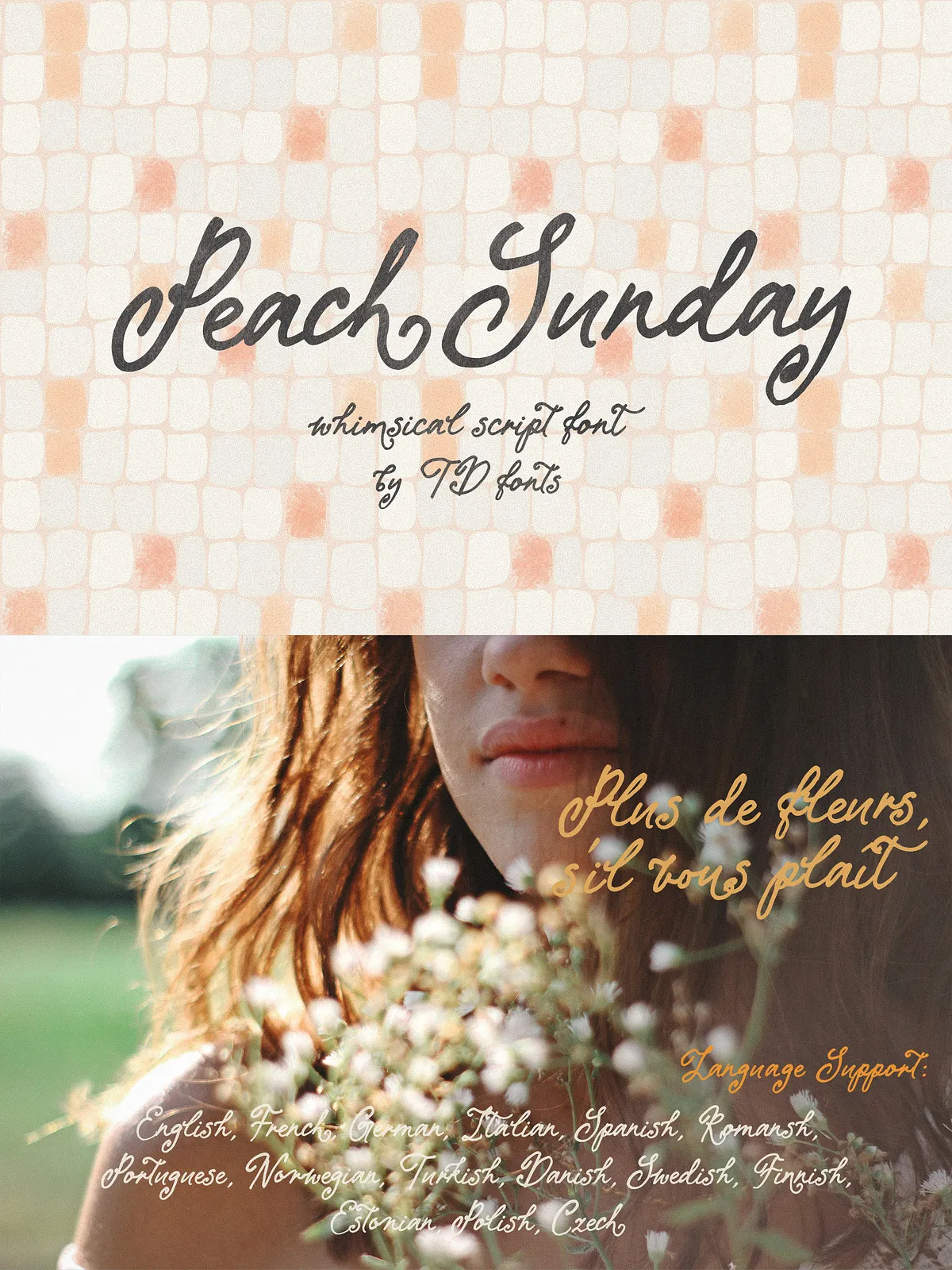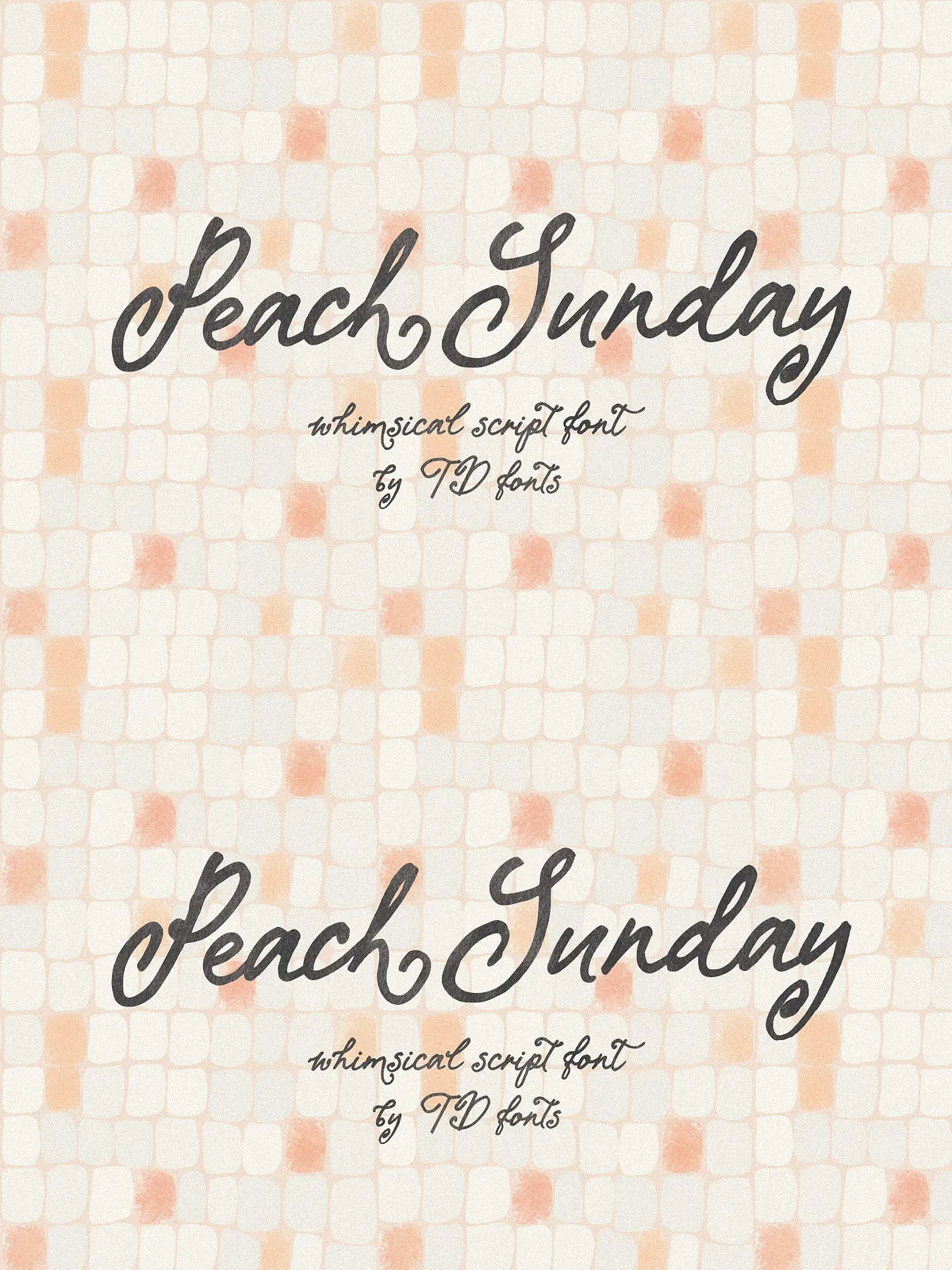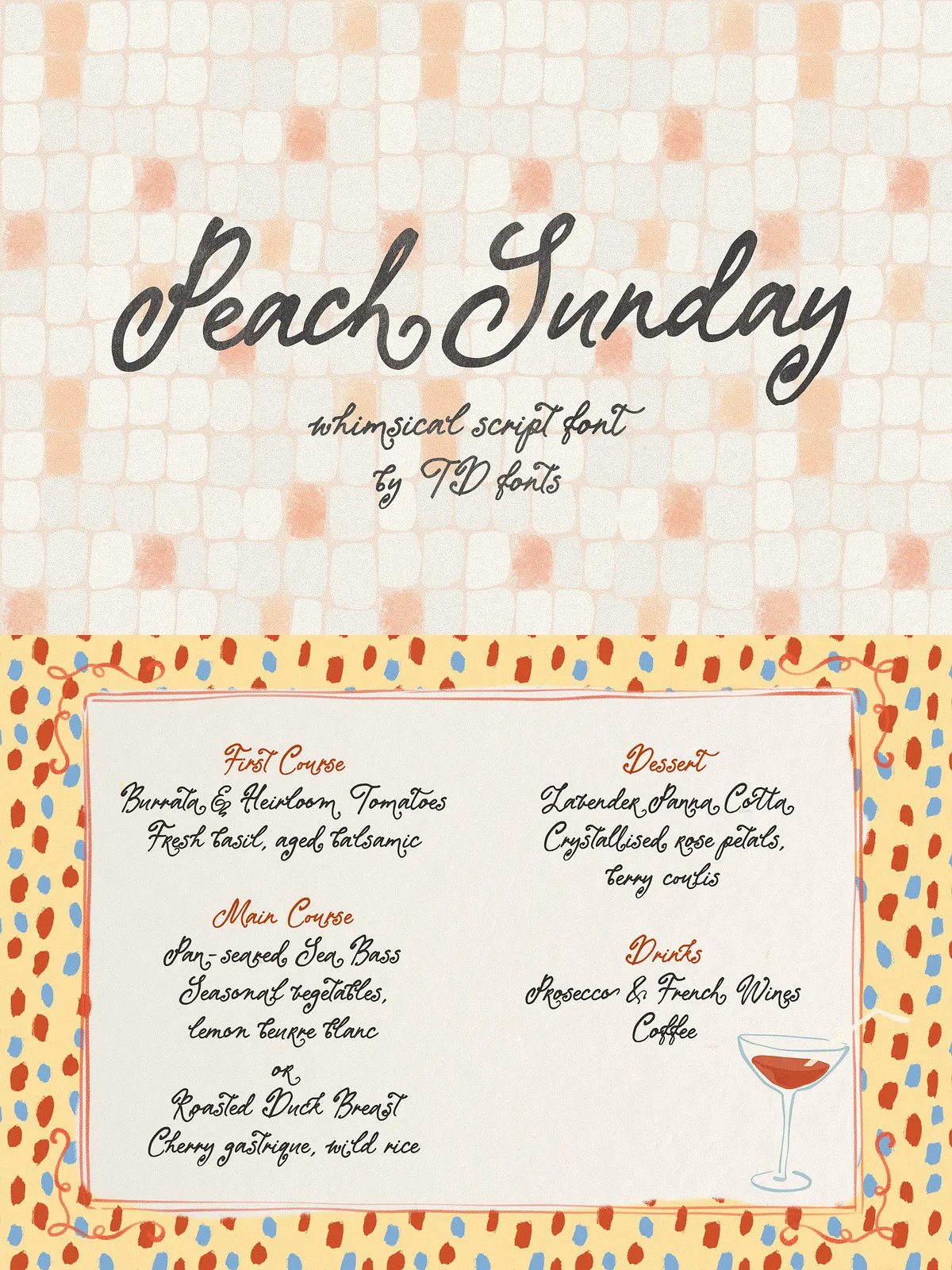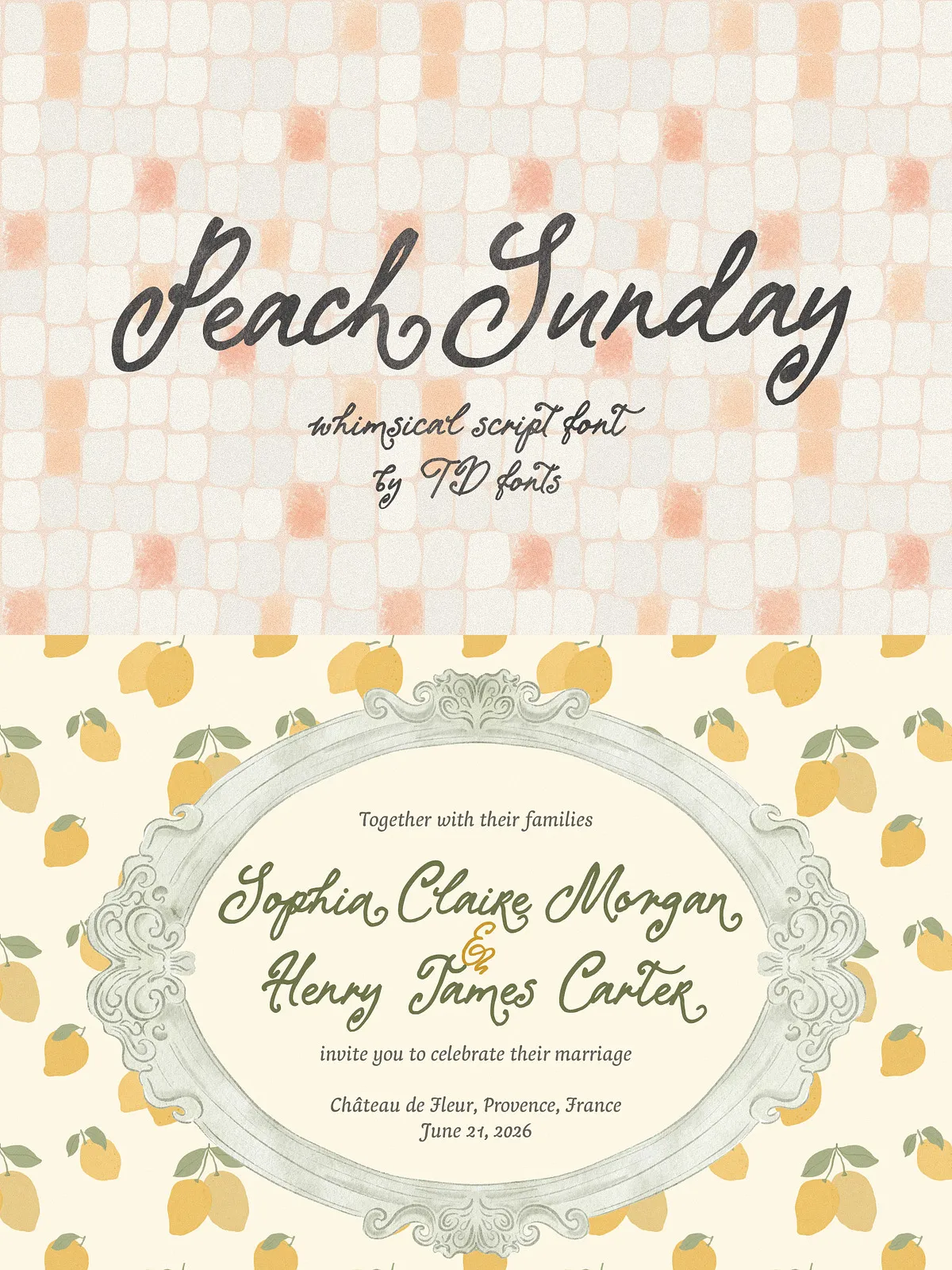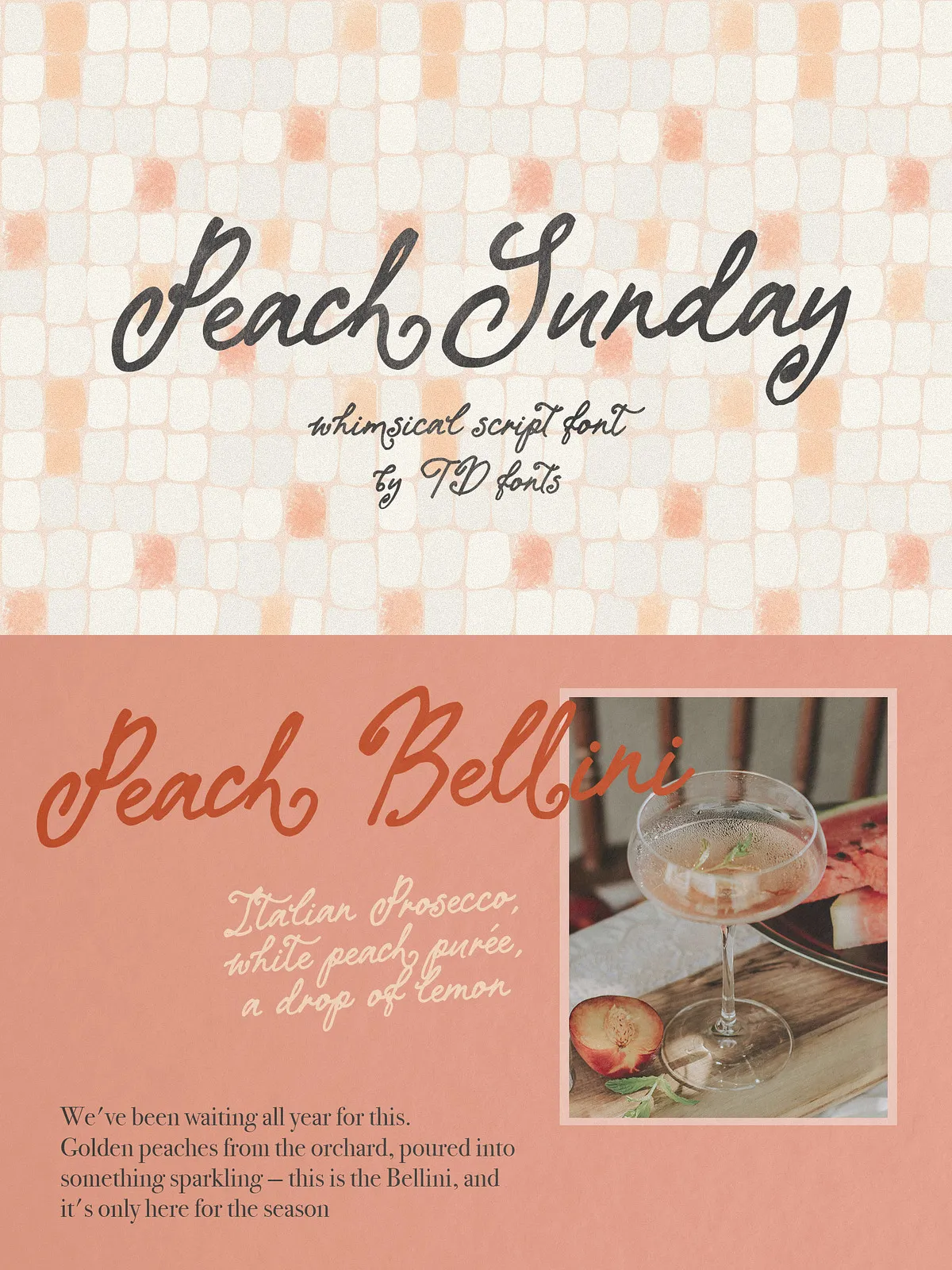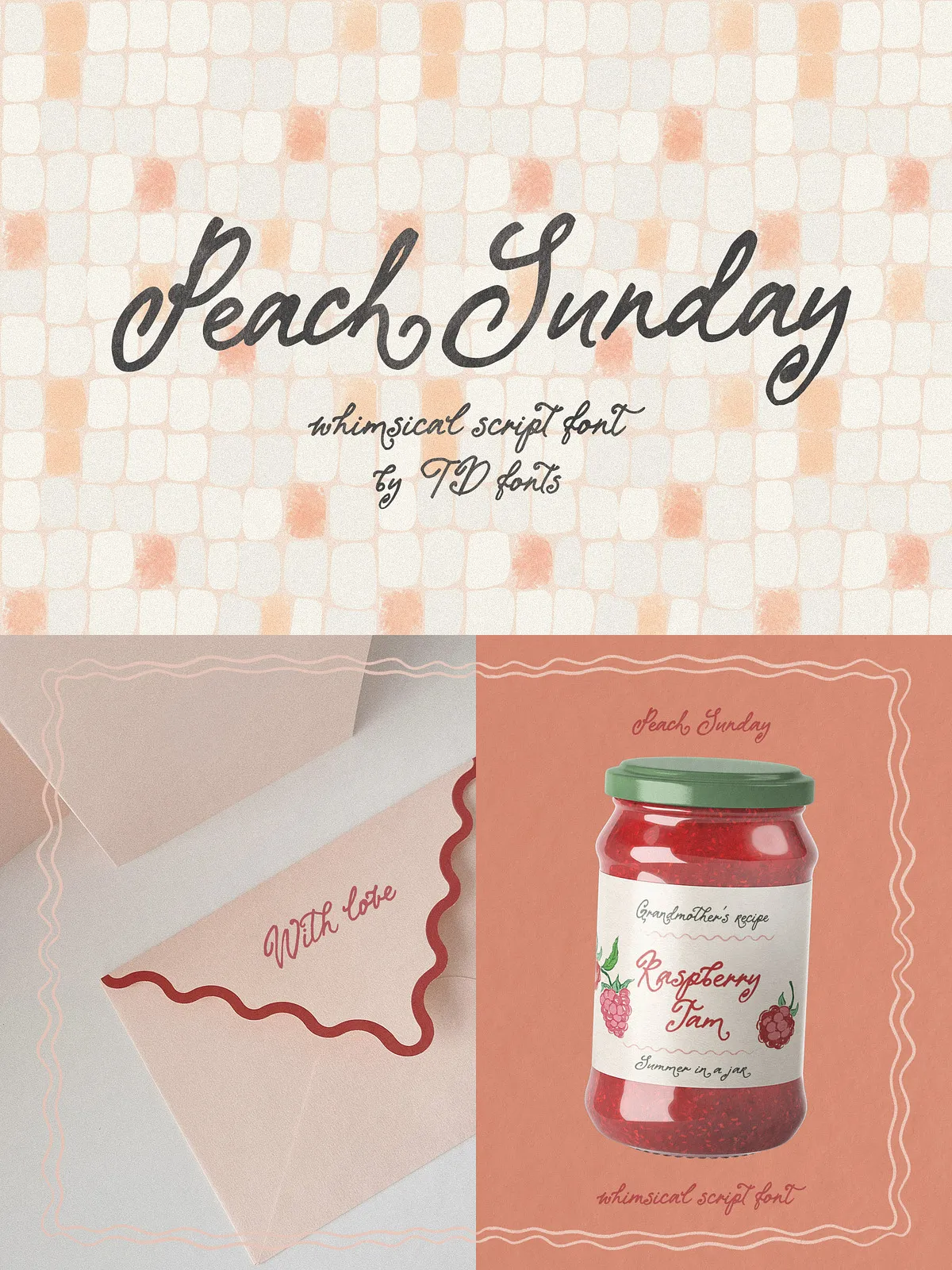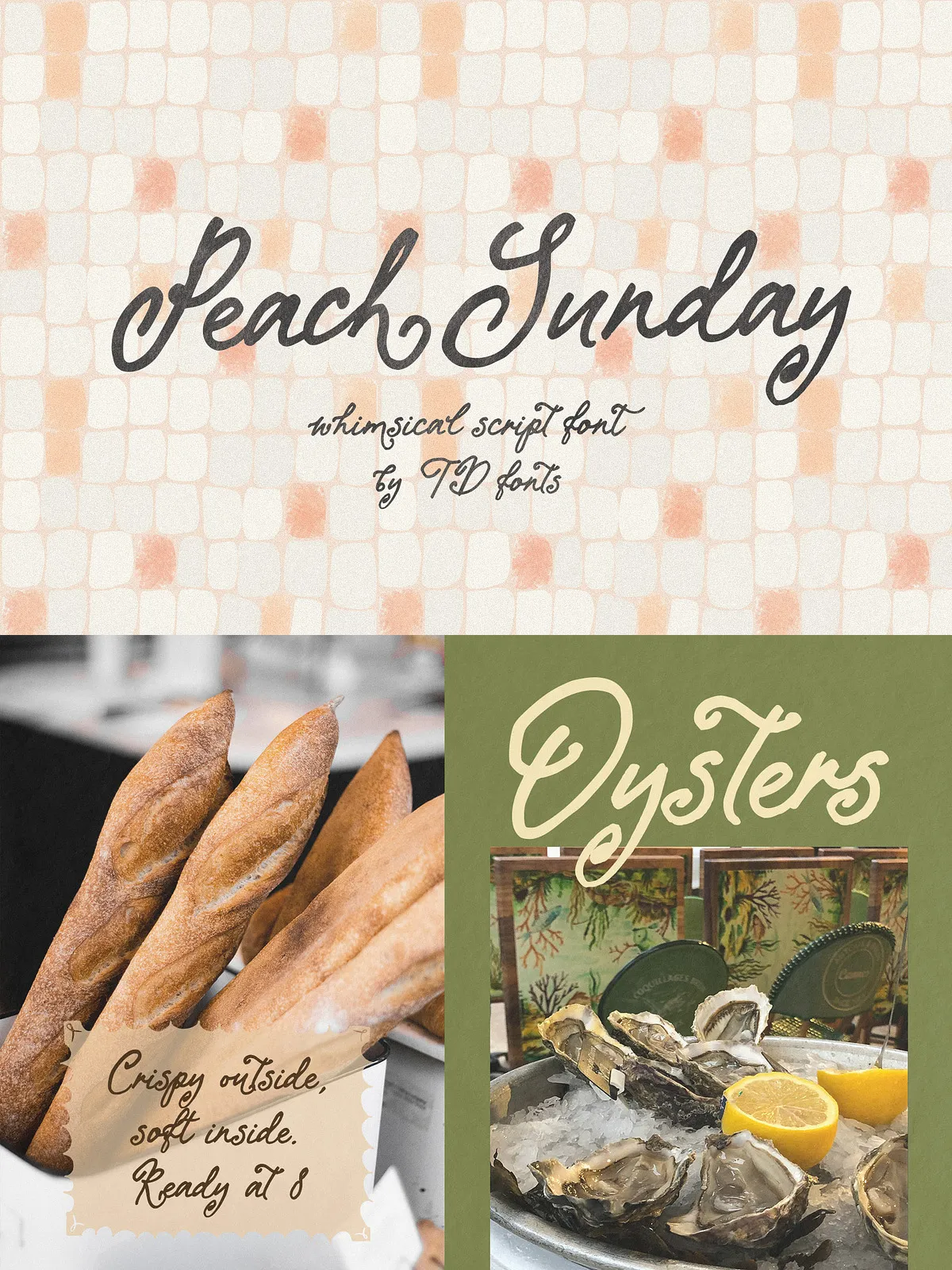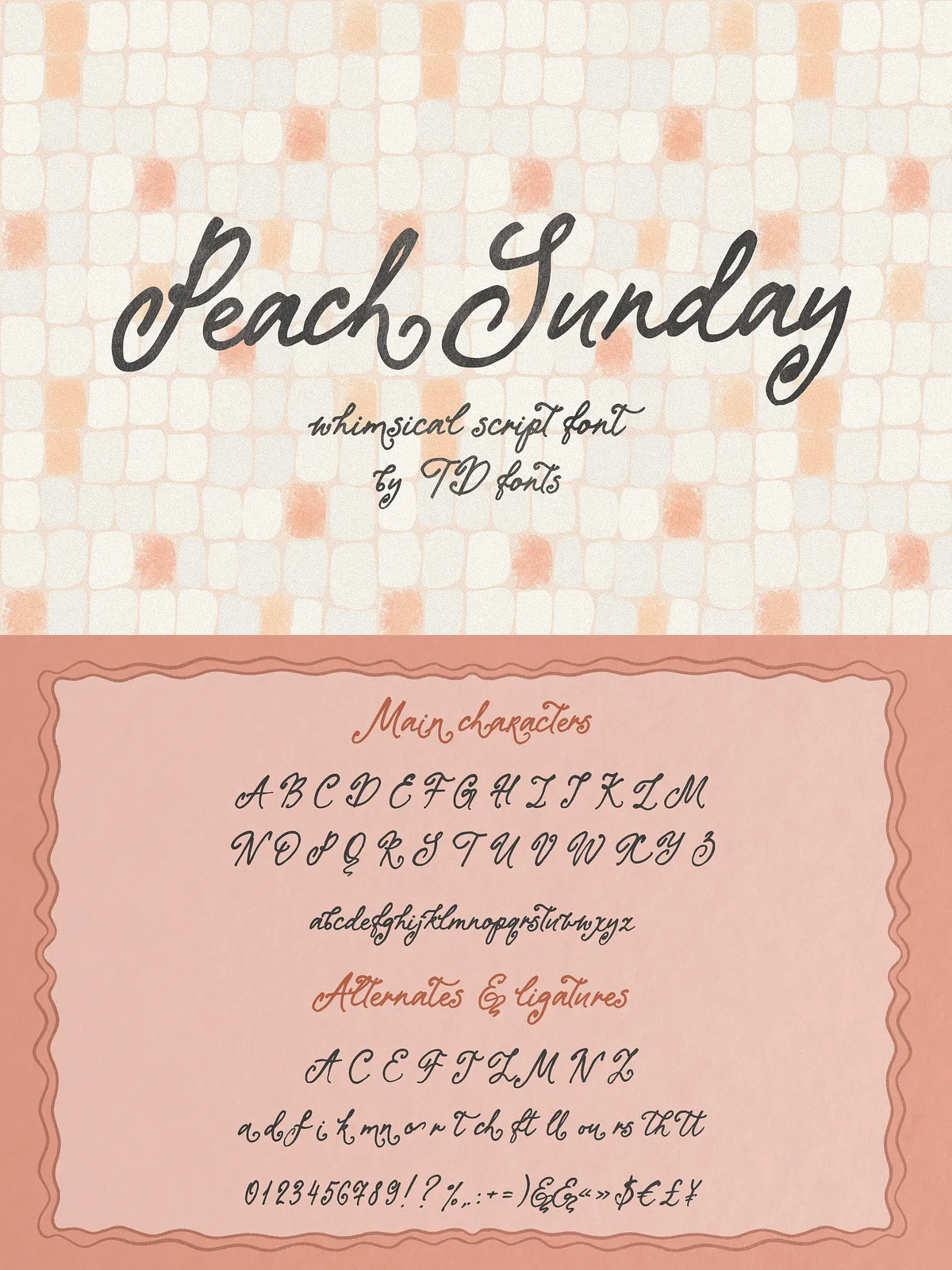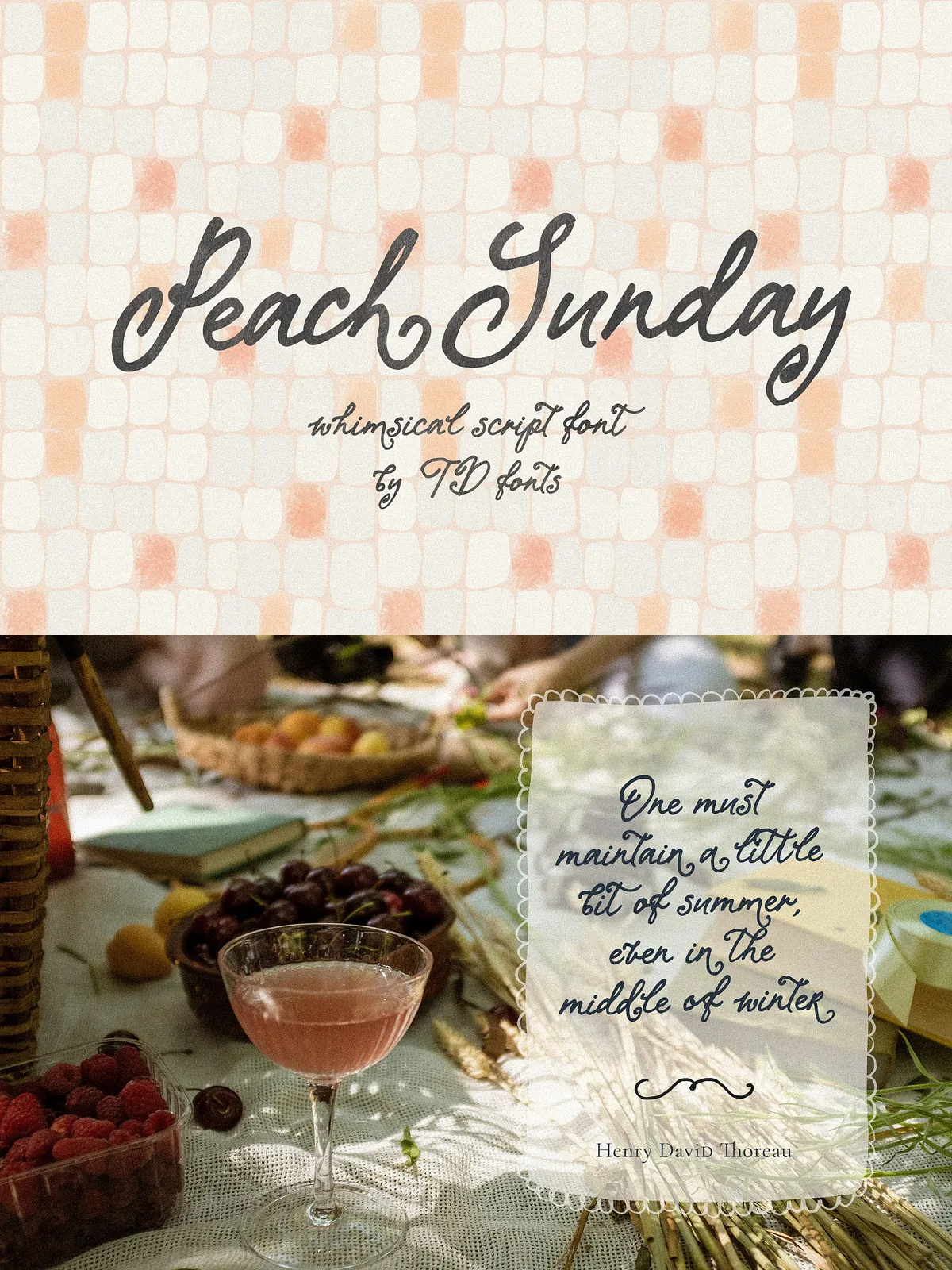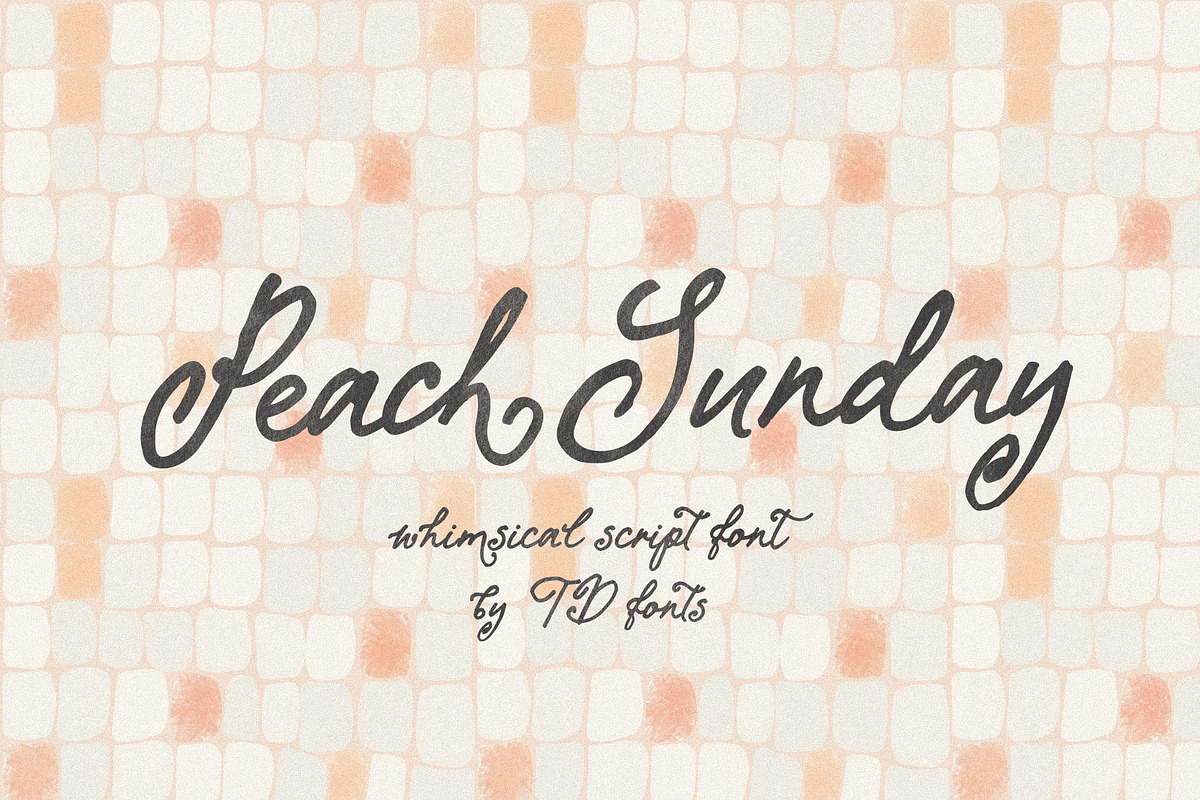
Peach Sunday is a handcrafted handwritten script that brings the relaxed charm of a slow, golden Sunday to your designs. Drawn with a dip pen and carefully vectorized to preserve the organic motion of ink on paper, this typeface reads as warm, intimate, and richly expressive. The letterforms feature clear stroke contrast — generous downstrokes balanced by delicate hairline connectors — producing a natural rhythm and a subtle bounce across the baseline. Capitals display elegant swirls and open loops while selected lowercase letters include swash descender alternates to introduce dramatic, signature-style flourishes.
Design Intent
This font was created to feel personal rather than engineered. It breathes like handwriting: uneven in the most appealing way, full of nuance and character. Designers will find Peach Sunday ideal when projects require a handcrafted voice that reads as sincere, feminine, and timeless.
OpenType Features
- Swash descender alternates for selected lowercase letters — ideal for logotypes, monograms, and signature treatments.
- Ligatures for natural, varied letter connections that prevent repetitive patterns in display settings.
- Contextual alternates that keep word shapes flowing and organic.
Peach Sunday supports a broad set of Latin-based languages including English, French, German, Italian, Spanish, Portuguese, Danish, Norwegian, Swedish, Finnish, Estonian, Romansh, Turkish, Polish, and Czech. The font works seamlessly in major design apps and platforms: Adobe Illustrator, Photoshop, InDesign, Affinity Designer, Procreate, Canva, and most modern word processors and web builders.
Ideal Uses
Peach Sunday excels wherever a design needs warmth, personality, and handmade elegance. Use it for:
- Wedding stationery: invitations, RSVP cards, menus, and save-the-dates that require romantic, readable script.
- Branding and logos: boutique, beauty, lifestyle, and artisan brands seeking a feminine, handcrafted voice.
- Product packaging: candles, soaps, jams, and boutique food or lifestyle products that benefit from an authentic, crafted label.
- Editorial headlines and social media graphics: quotes, feature headers, and promotional artwork that need a personal touch.
- Greeting cards, posters, and wall art: expressive display usages where the swash alternates can become focal ornamentation.
Design Tips
To maximize Peach Sunday’s impact, pair it with a neutral sans-serif for body copy and let the script lead the hierarchy. Use swash alternates sparingly for main logotypes or initials to avoid visual clutter. In packaging, place the script on a textured background or subtle pattern to enhance the handcrafted aesthetic without sacrificing legibility. When using on dark backgrounds, apply a thin stroke or soft shadow to preserve fine hairlines.